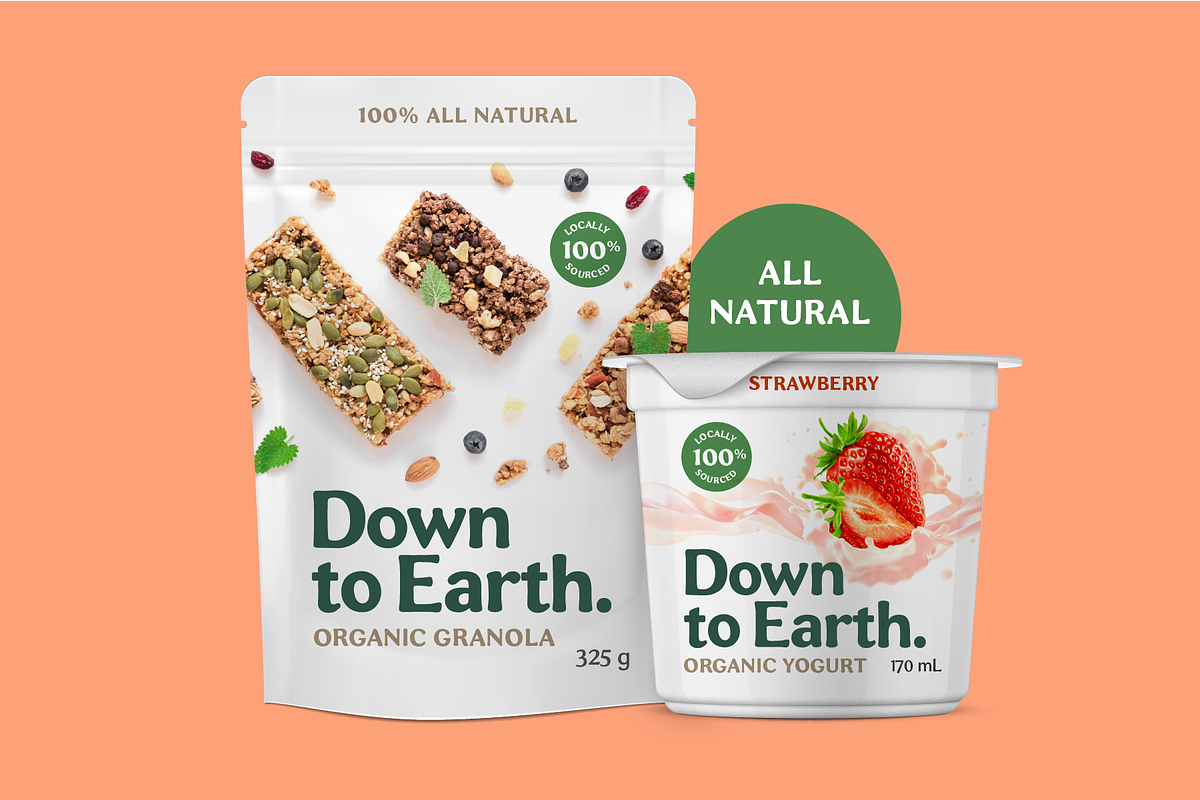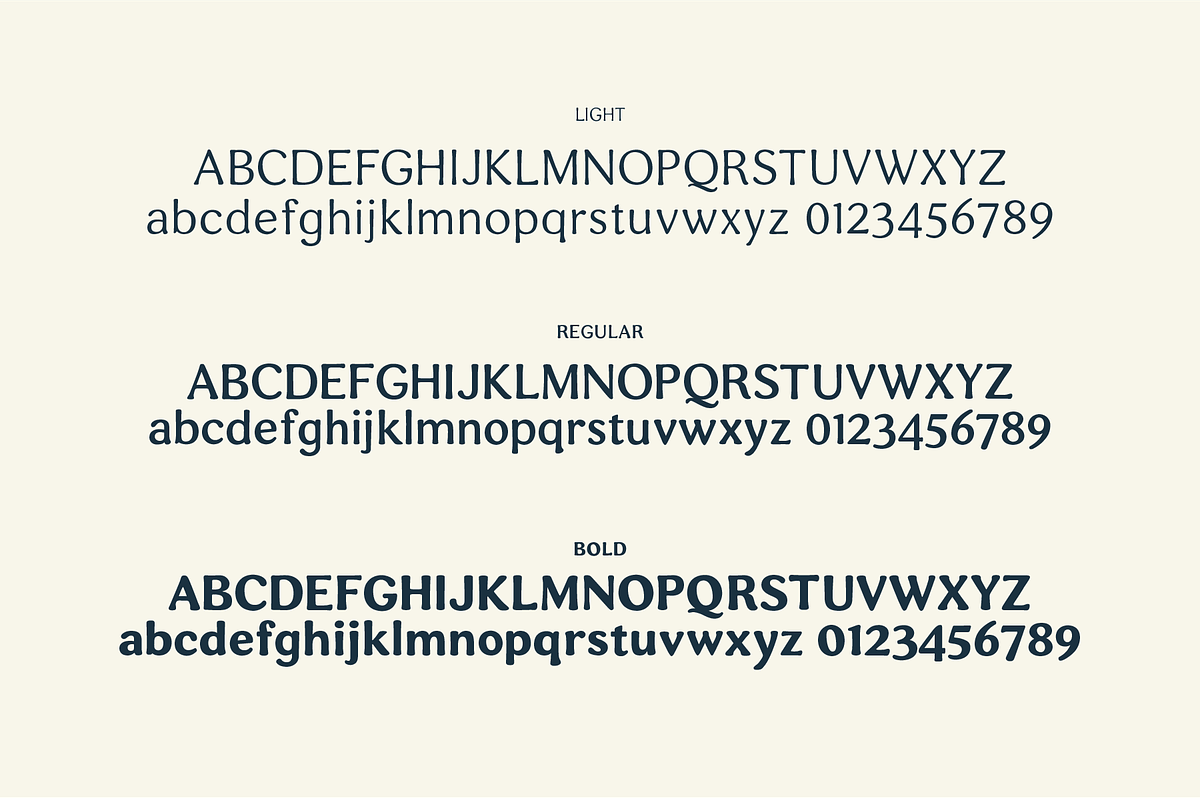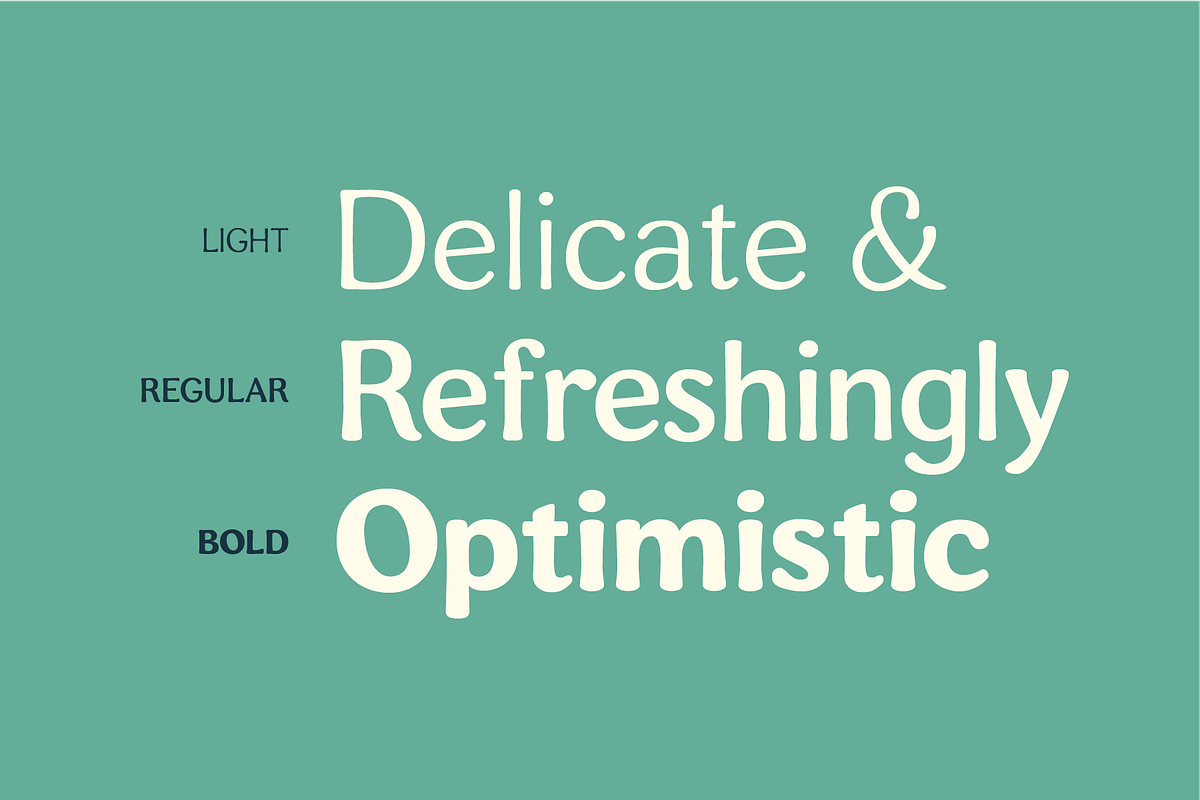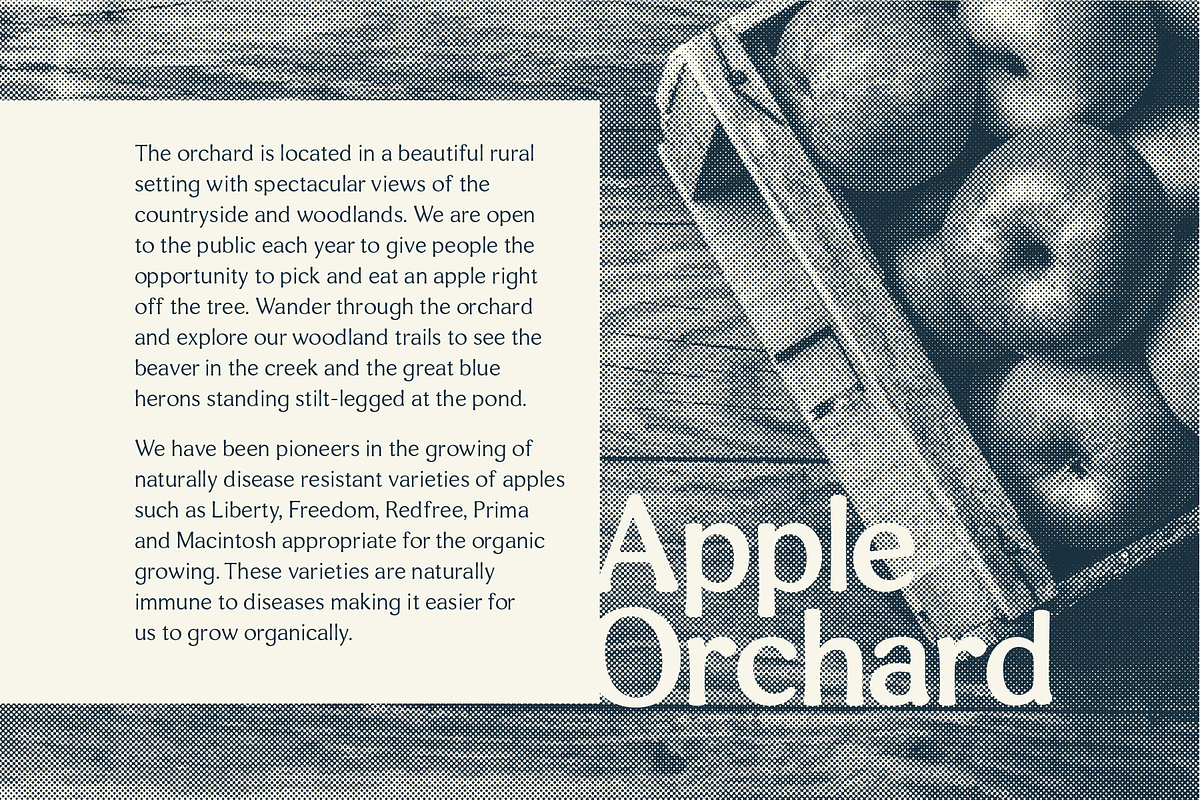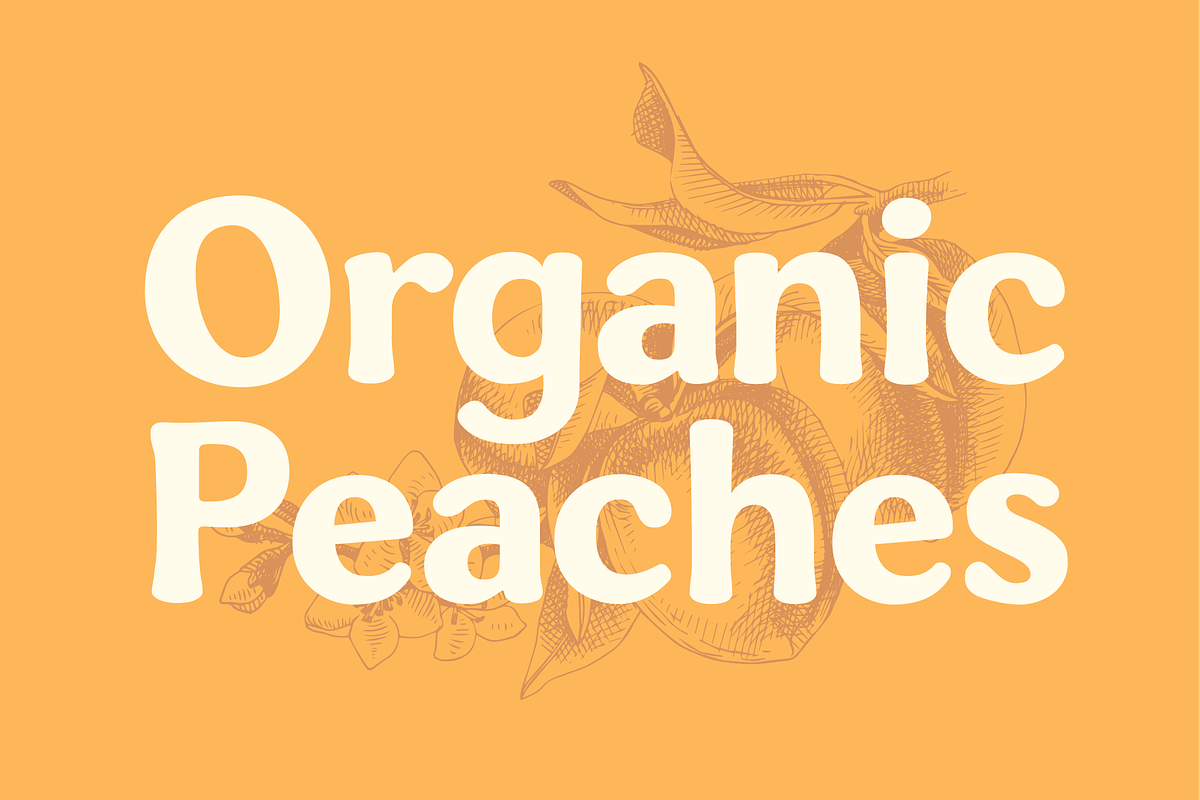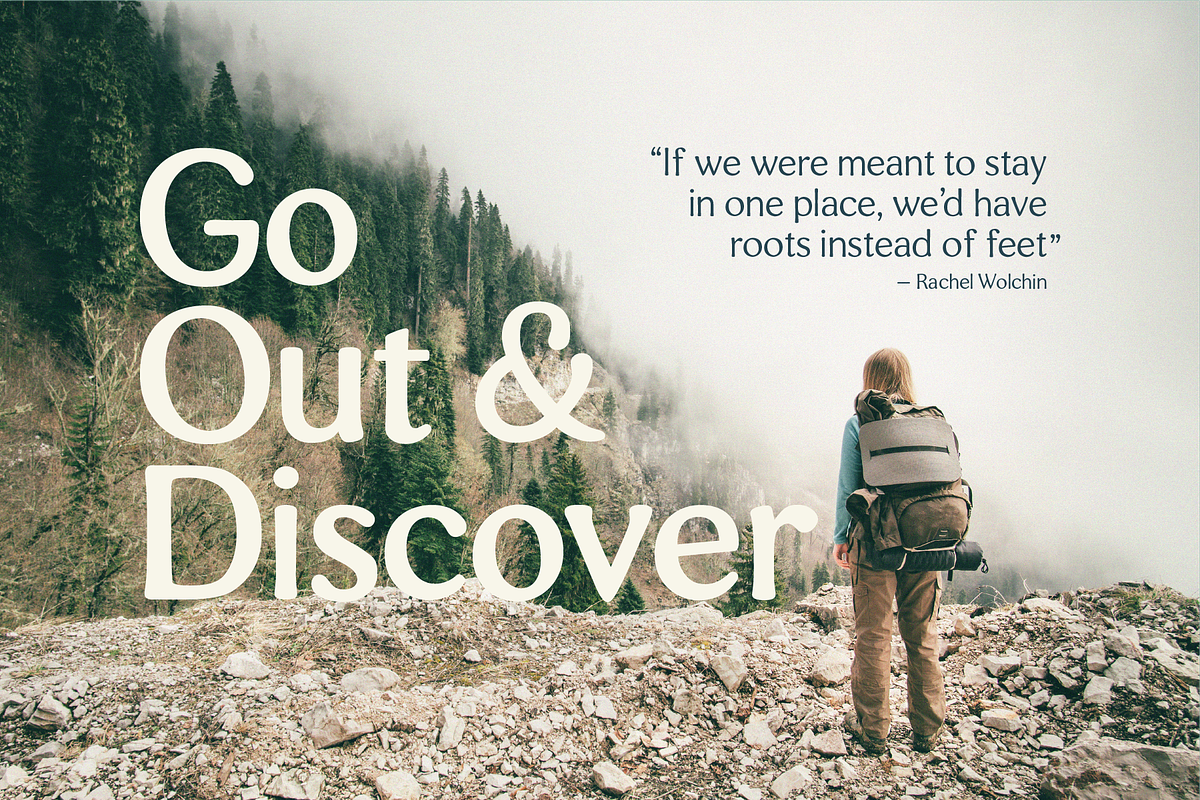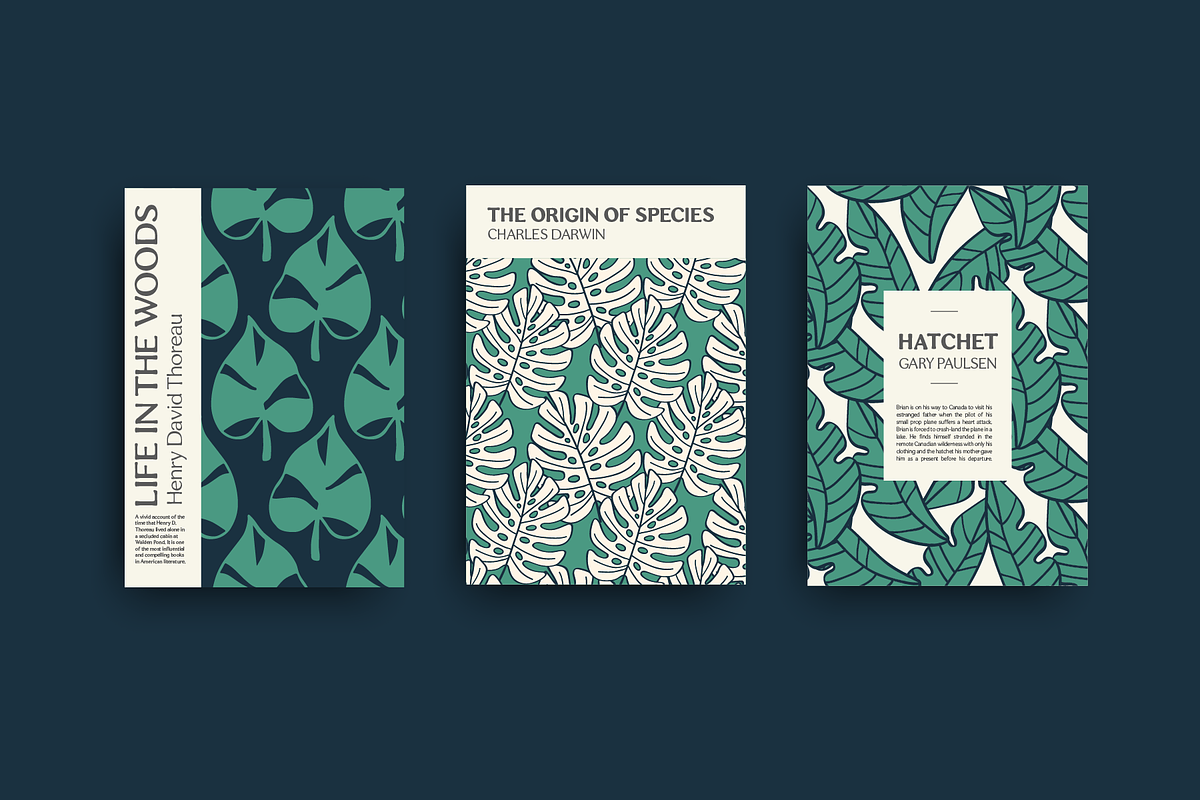
Heirloom: A Good-Natured Font
HEIRLOOM grew from an interest of soft and friendly forms from the 1970s, with respect to its chill vibes and natural earthy roots. Its refined approachable characteristics allow it to be very readable carry a modern relaxed attitude.
Heirloom: A Good-Natured Font by Black Lab Type fits naturally into Branding, posters, packaging, typography.